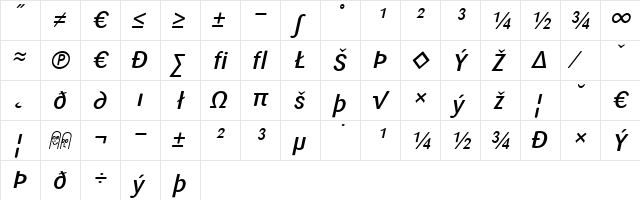
Sari Medium Italic Font Preview
Sari Medium Italic
| Foundry | Hans Reichel, . Published by FontShop International. FontFont Release |
Design Context for Sari Typeface
Sari takes a measured approach to typography — its balanced proportions and neutral character make it a reliable workhorse for both digital and print work. The dynamic lean of this cut emphasises speed and emphasis in any layout.
Pro Tip: Use Sari for emphasis, pull quotes, and subheadings where its slanted energy can add rhythm to the layout.